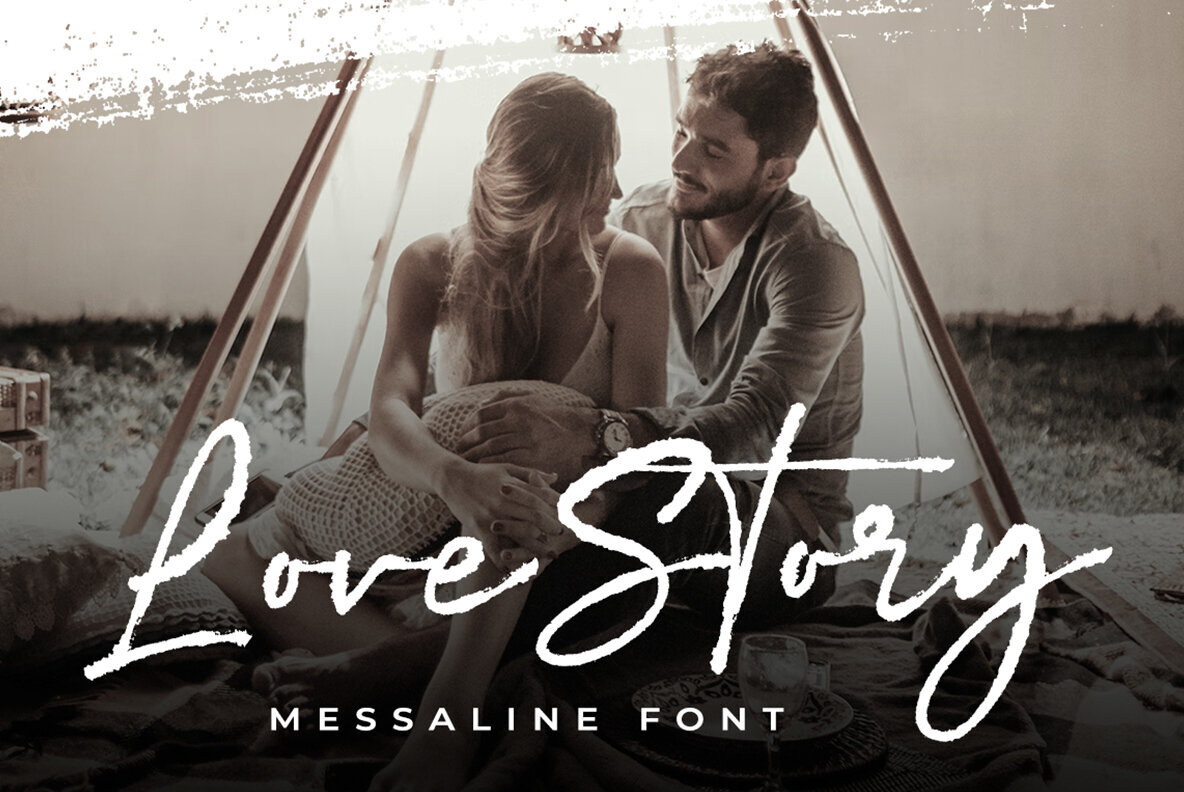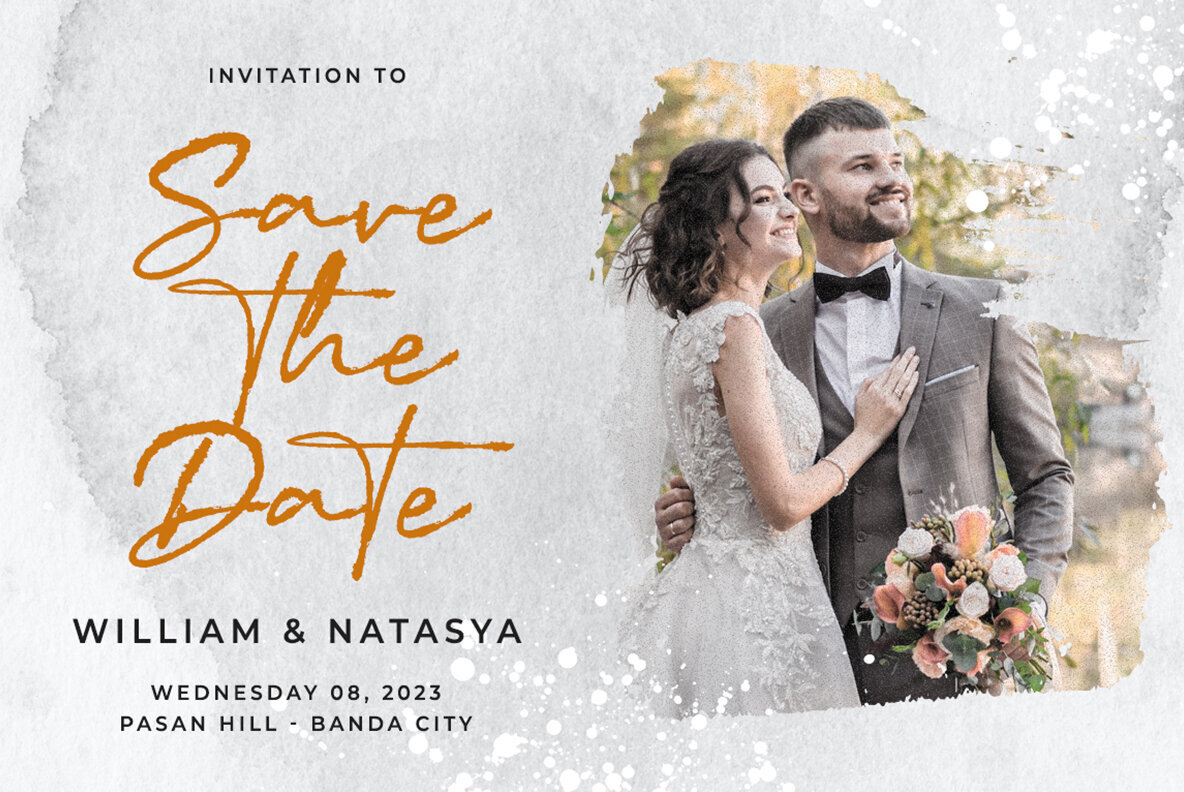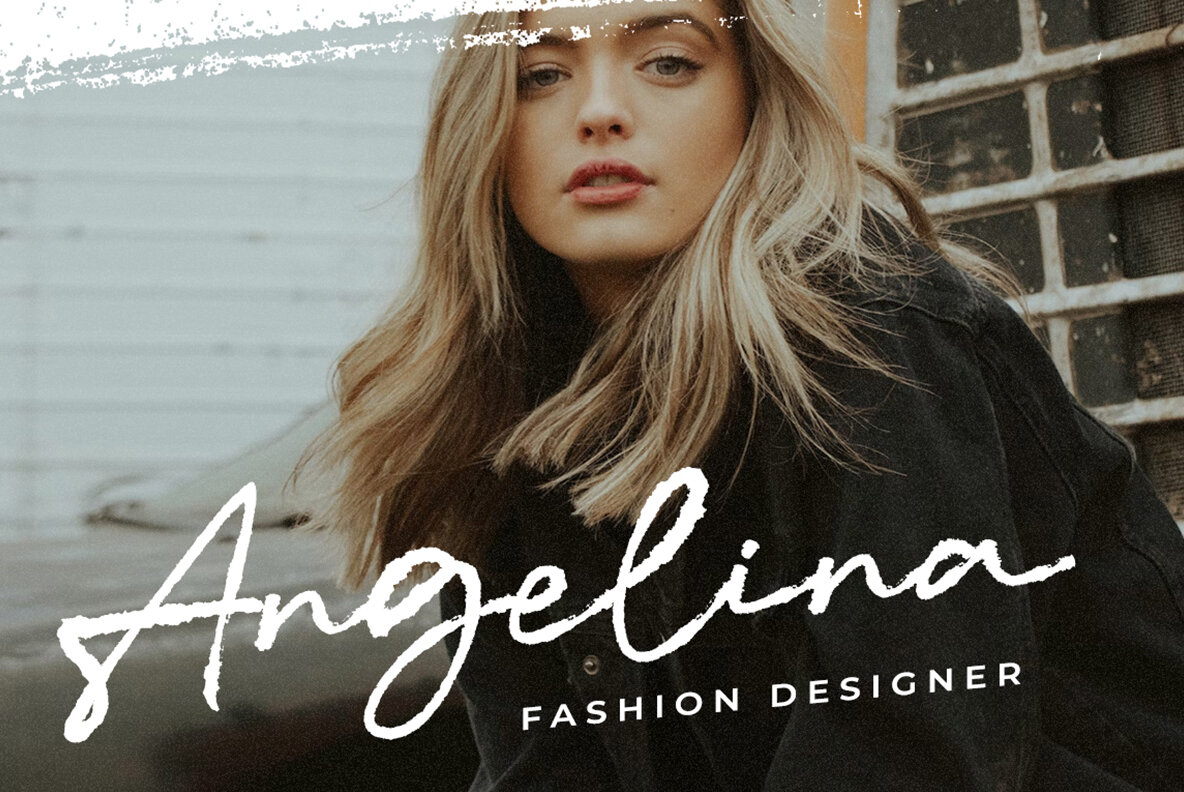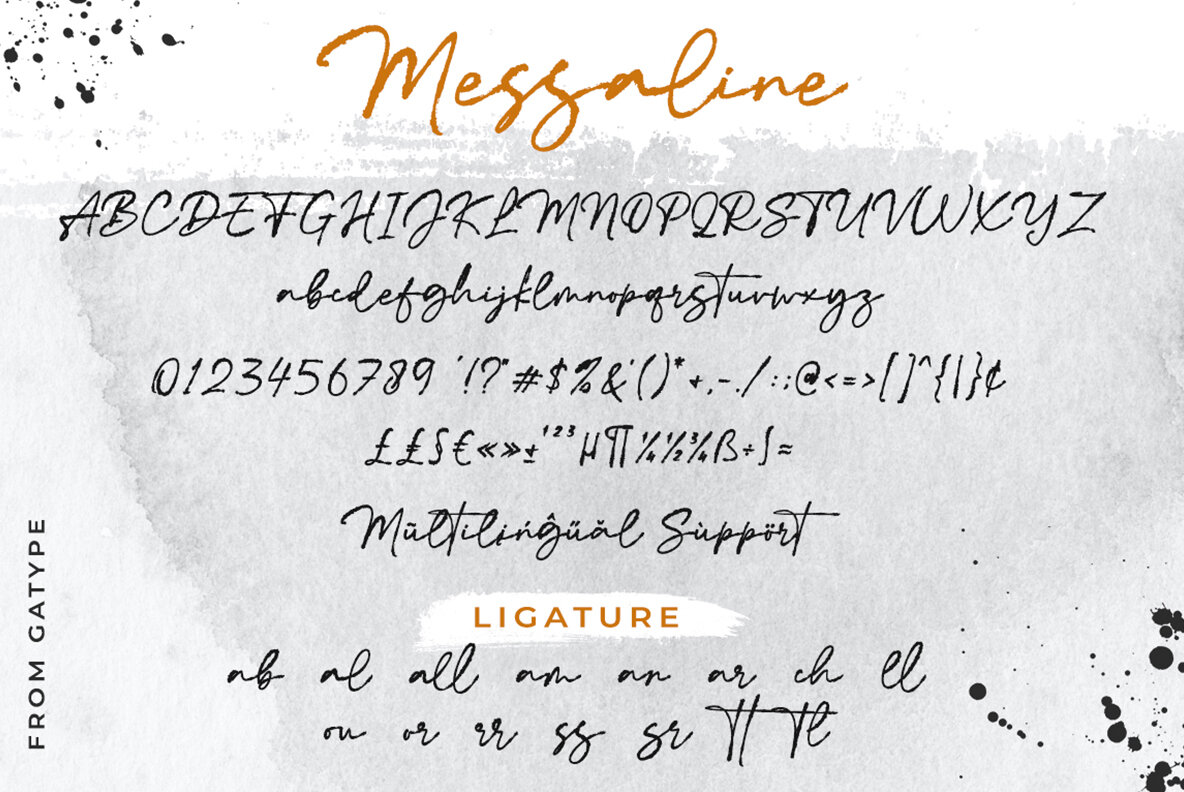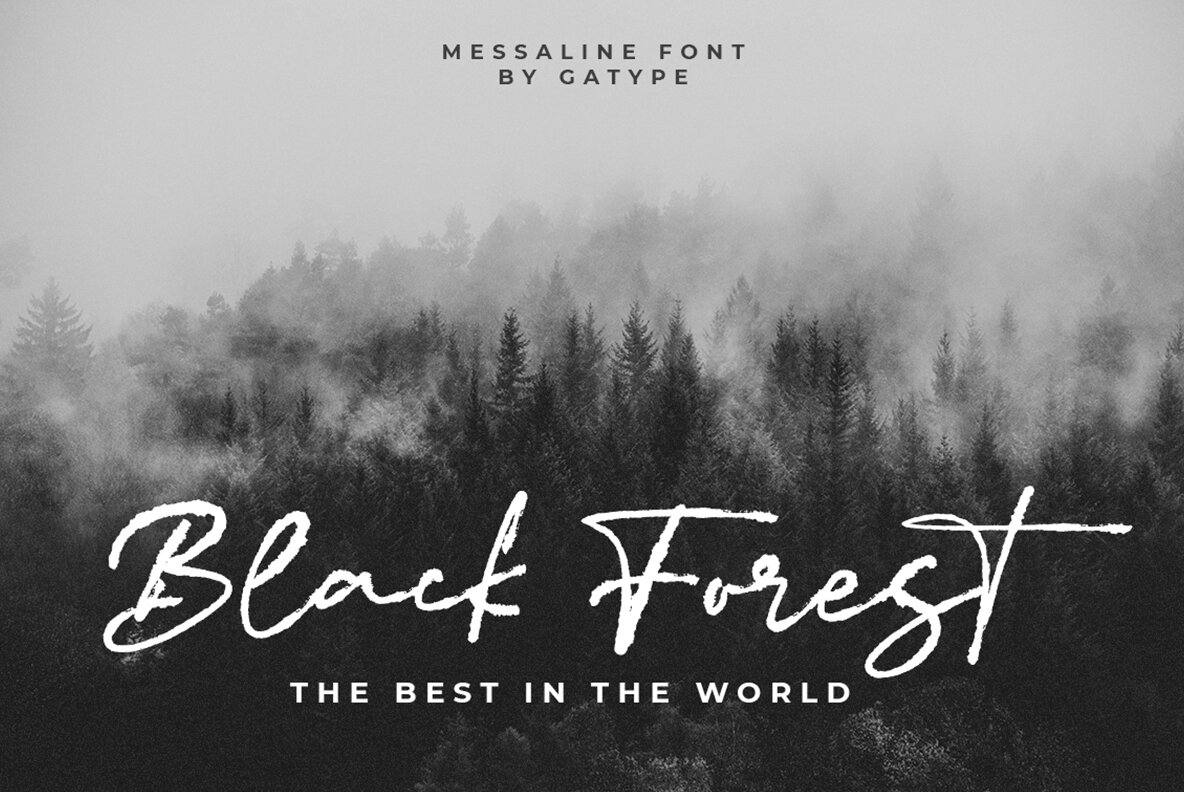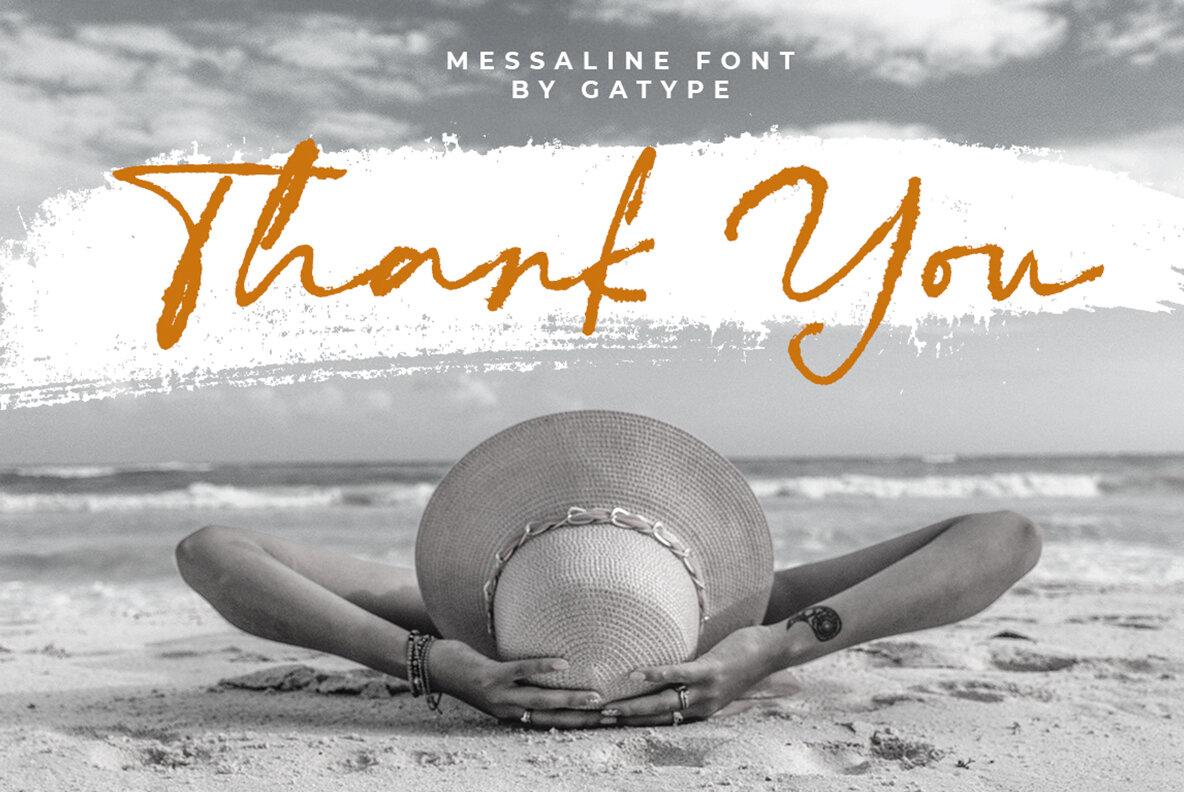
Messaline Font
Messaline is a beautifully crafted brush script that evokes a sense of ease and authenticity. Each letter is meticulously created with a brush pen on paper, capturing the natural strokes and fluidity before being transformed into vector format. This gives Messaline its unique organic and relaxed character. Messaline is ideal for a wide range of design projects where a personal touch is desired. Whether you are working on titles for books, stationery designs, quotes, branding, logos, or clothing, this typeface offers a genuine and personal touch. It also shines in invitations, greeting cards, t-shirts, packaging designs, posters, and more.Messaline: Relaxed Brush Script for Authentic Designs
Versatile Design Applications
Distinct Features